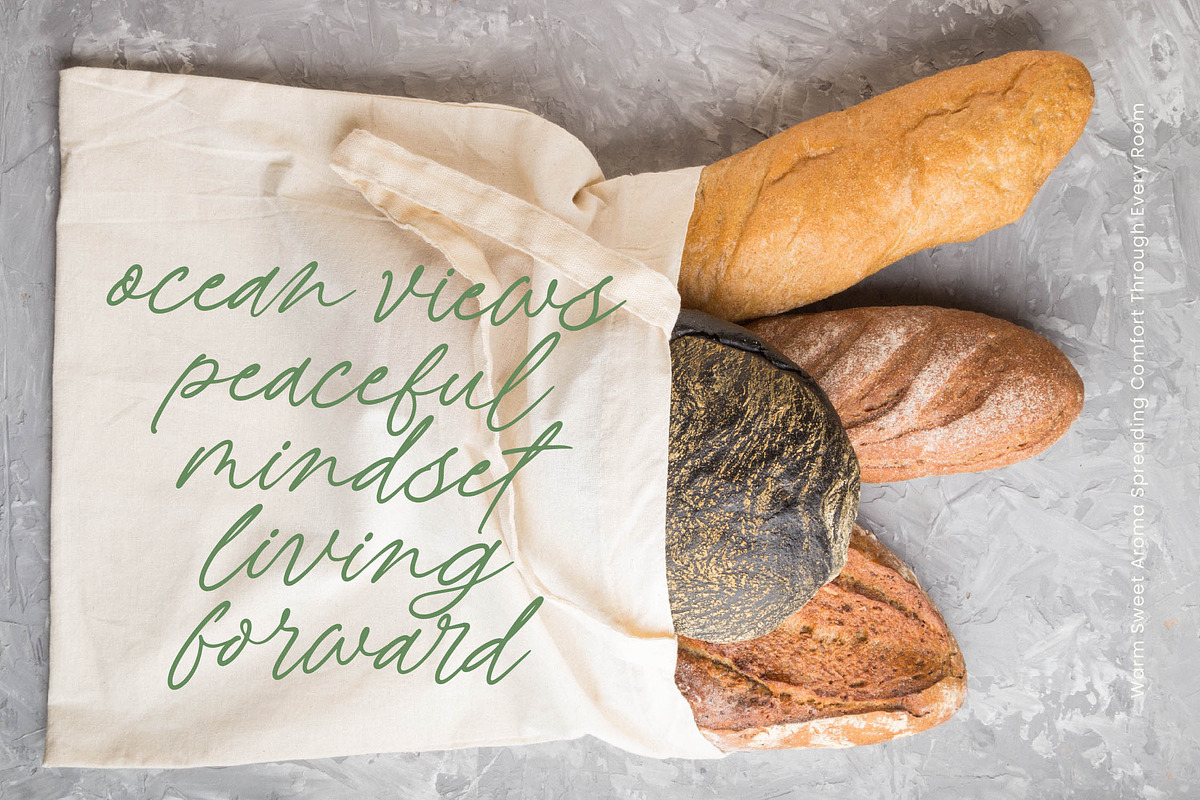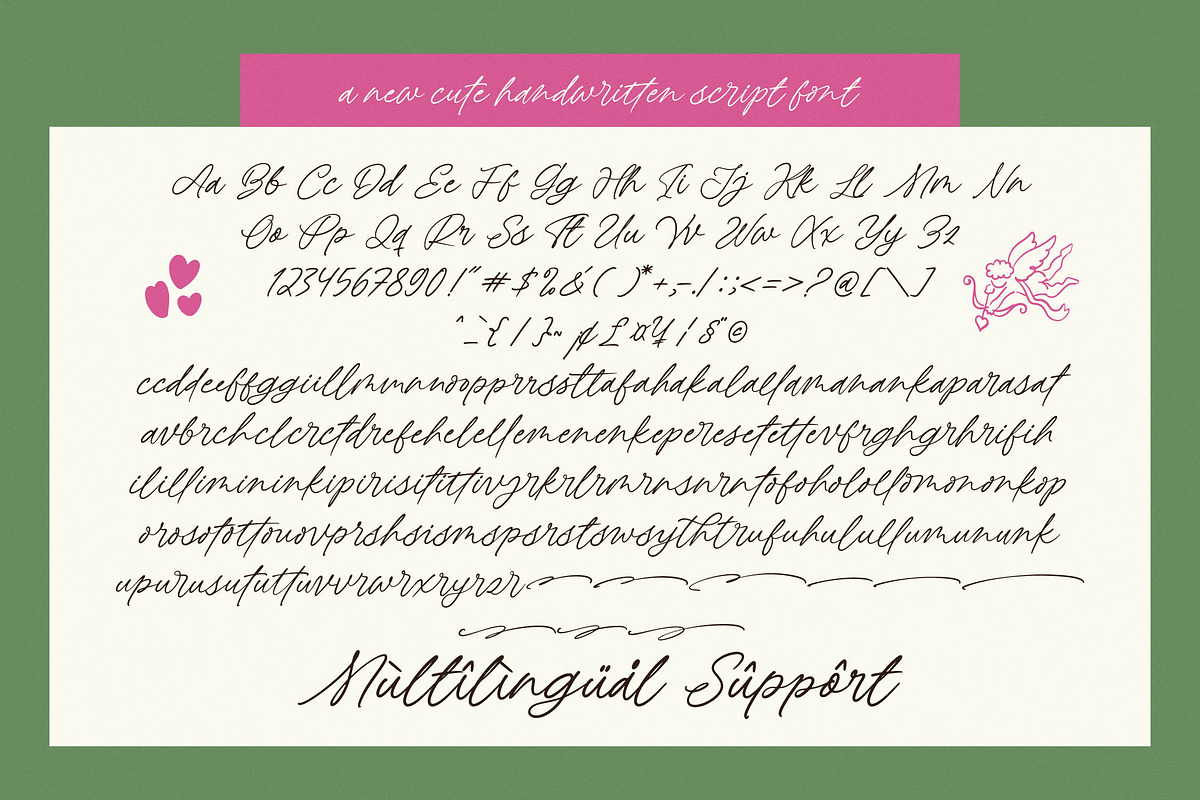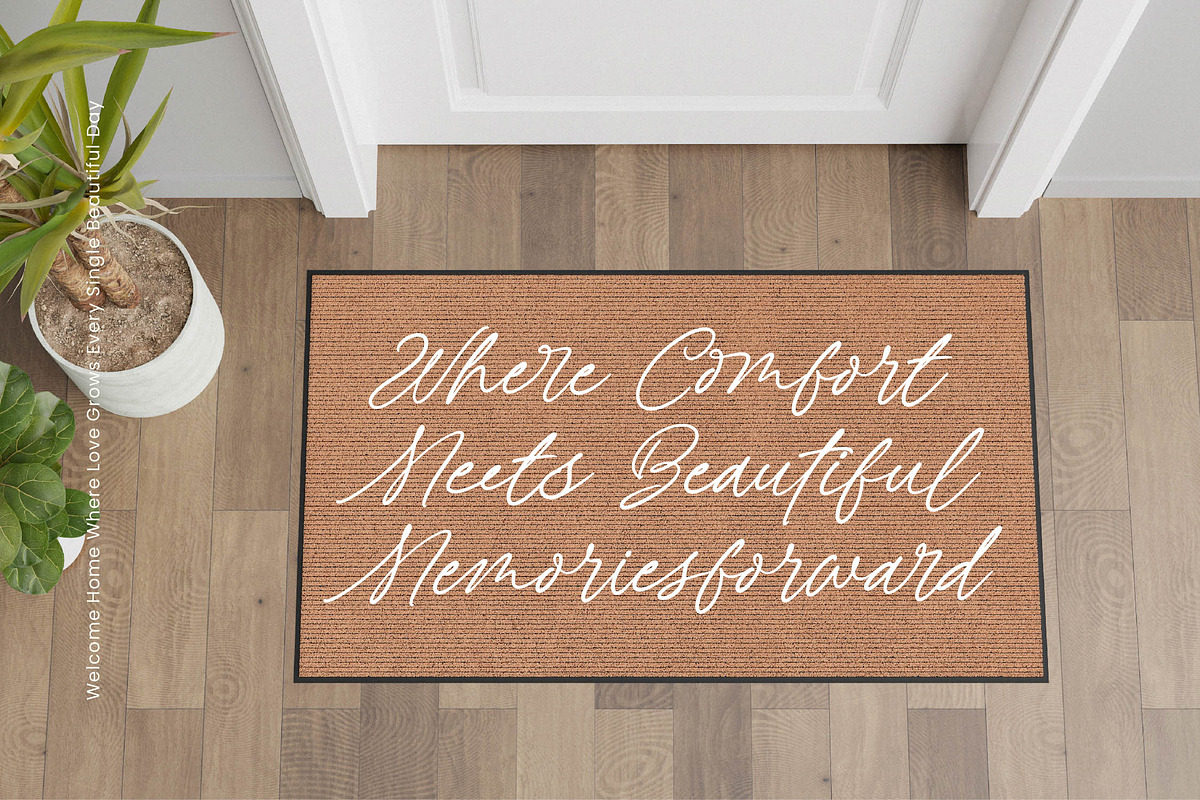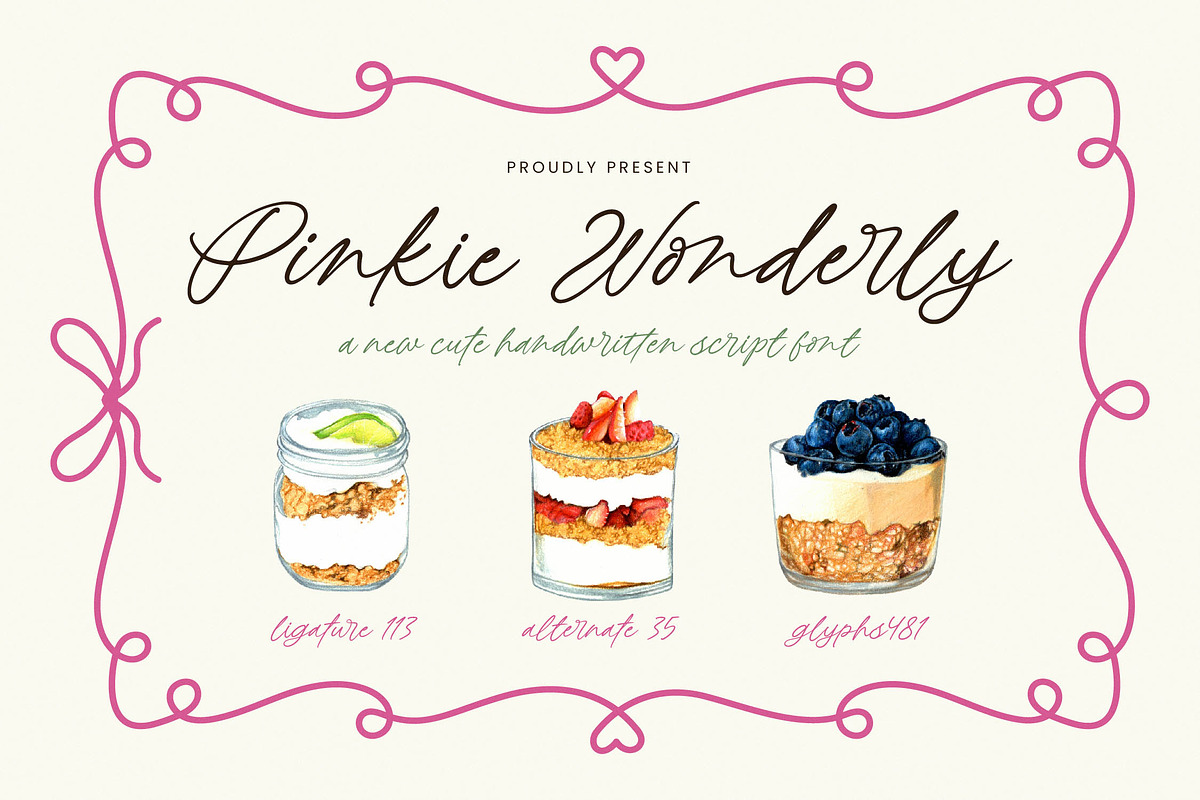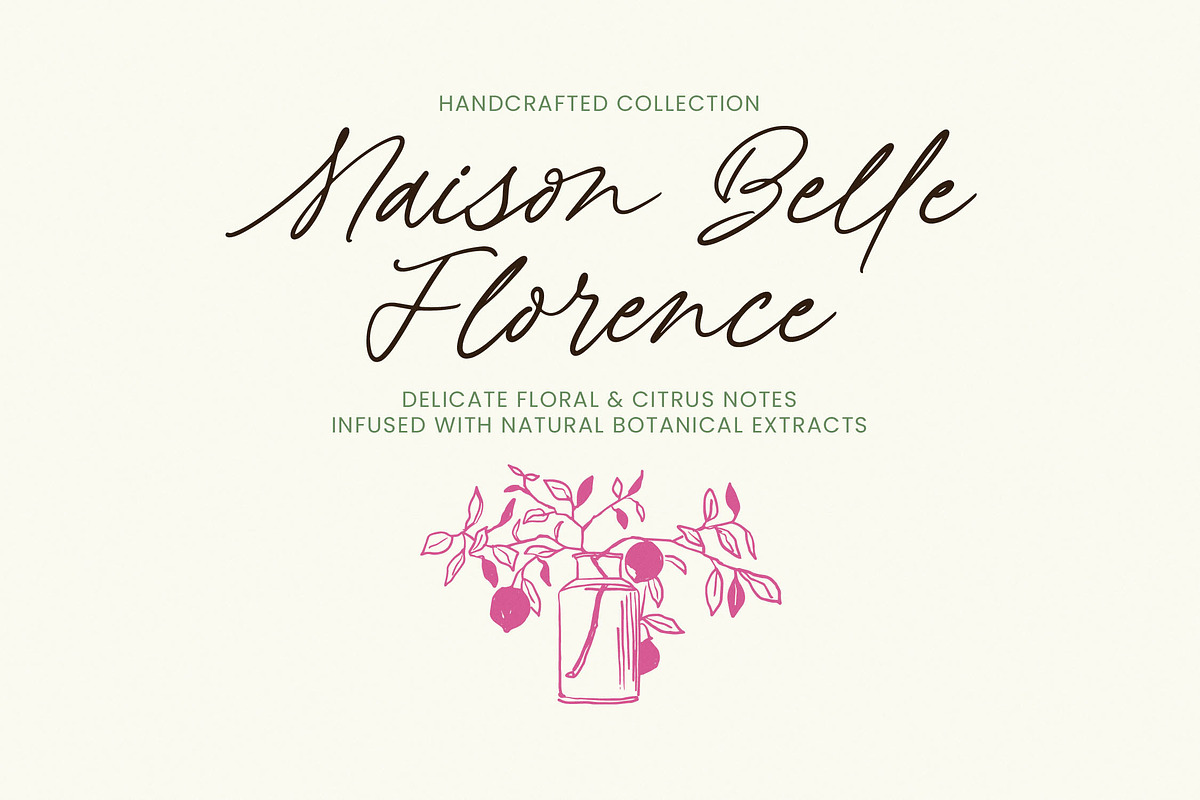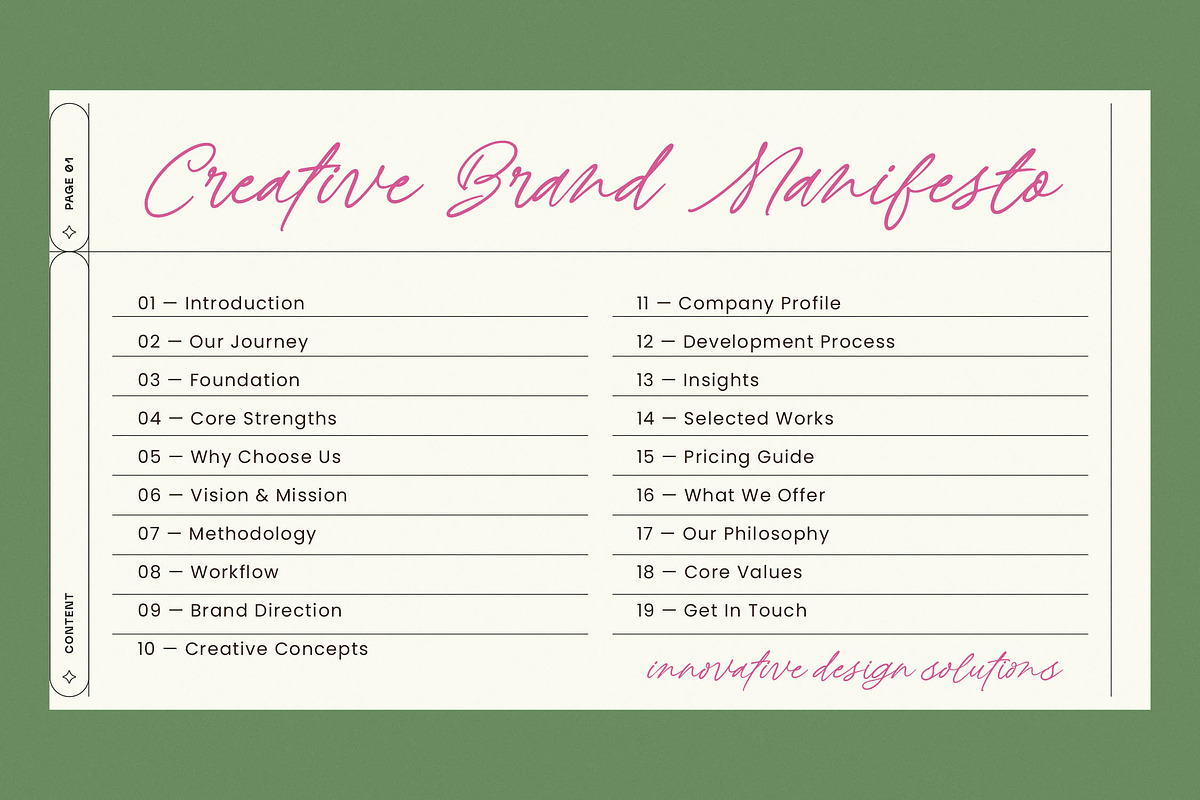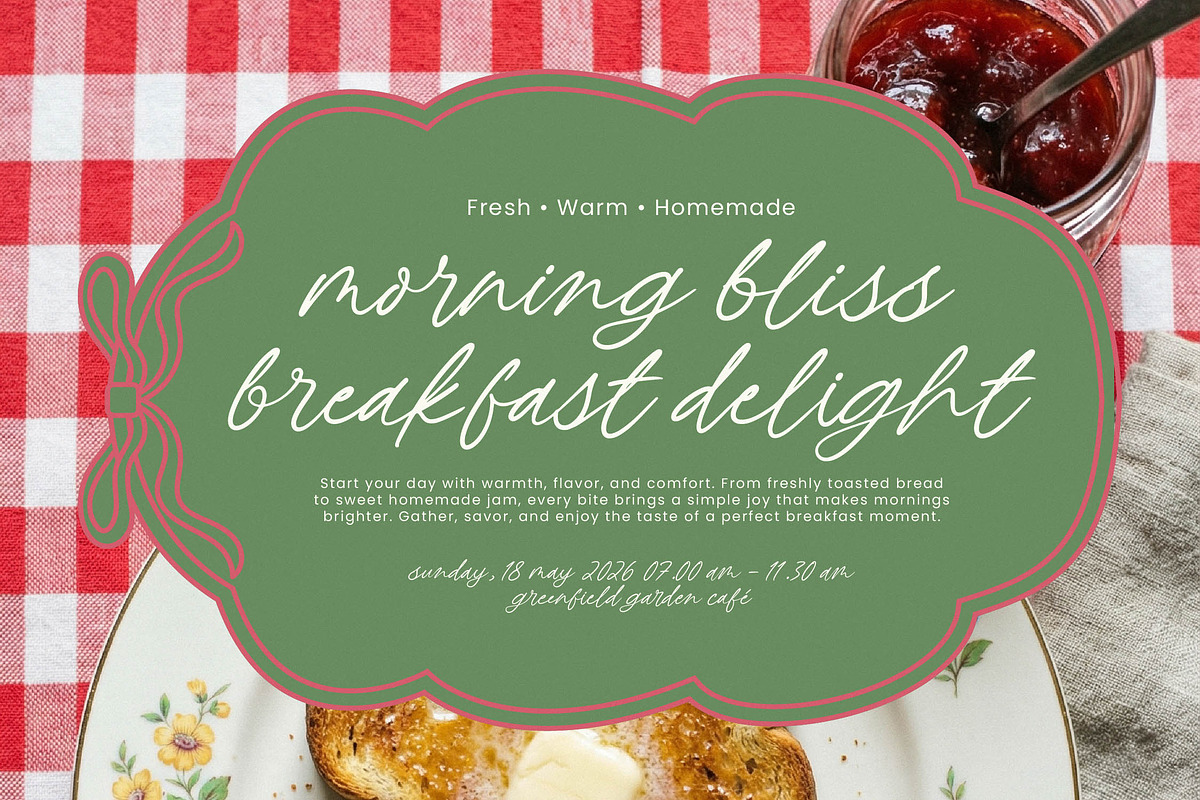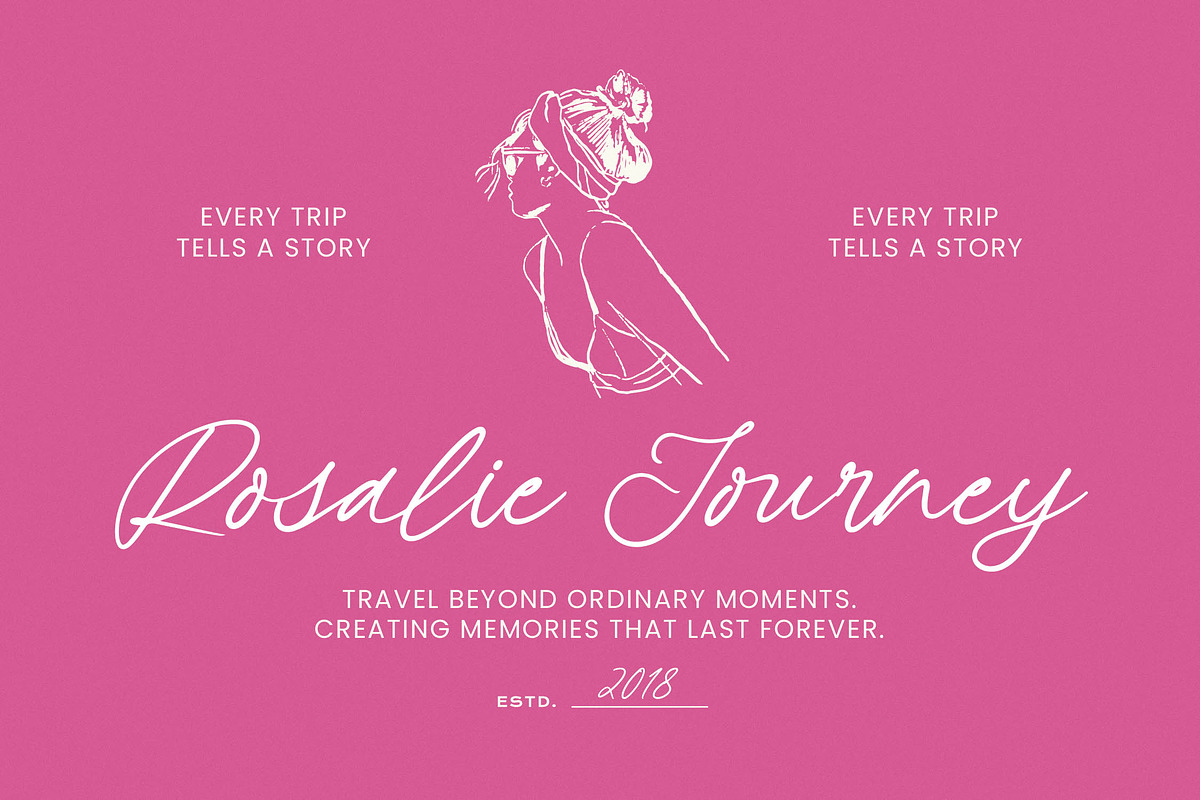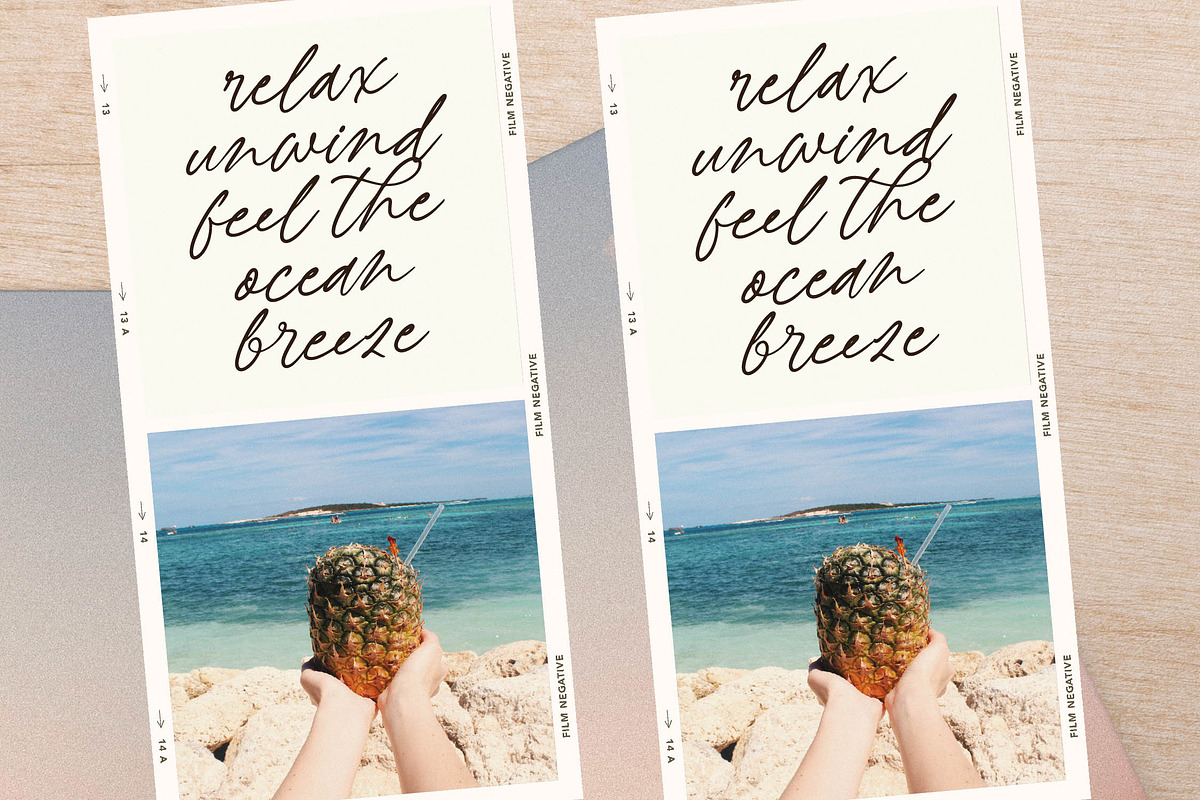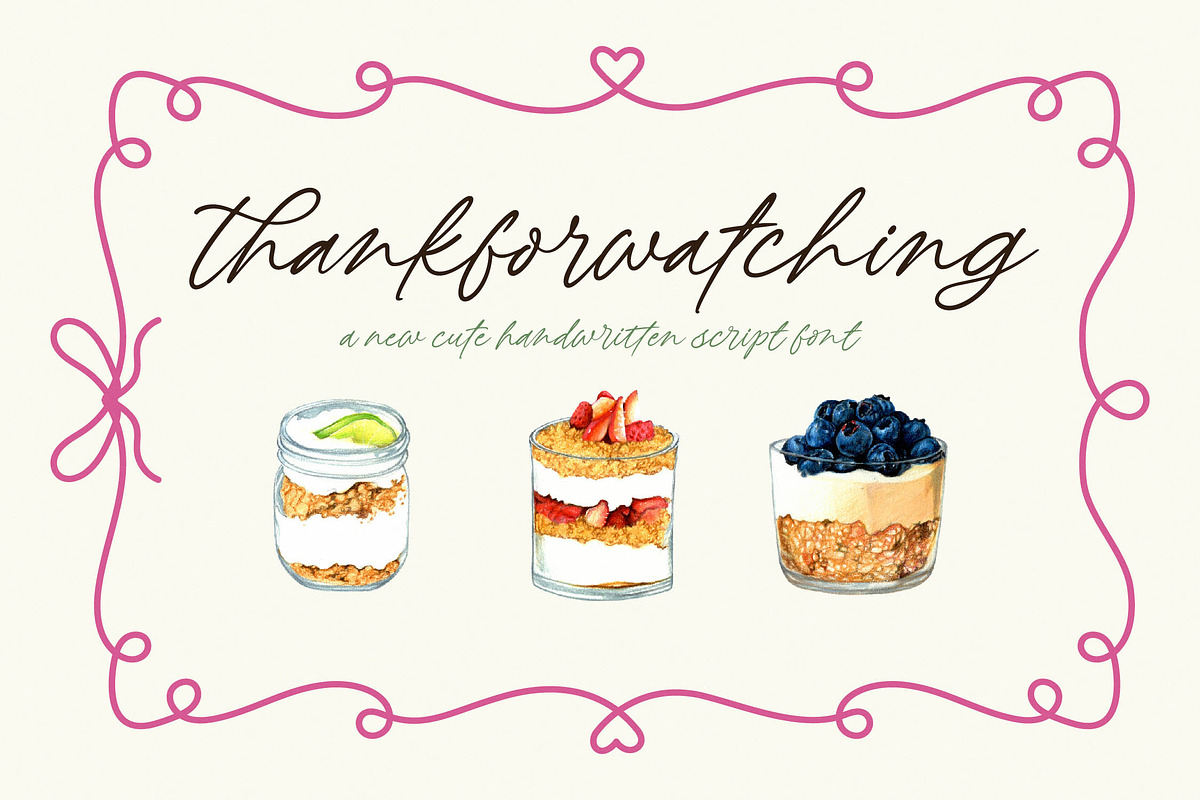
Pinkie Wonderly Handwritten Script
Pinkie Wonderly - Cute Handwritten , Pinkie Wonderly captures the essence of sweetness in every stroke, offering a delightful dance of letters that brings a touch of magic to any digital canvas. This handwritten script is designed to turn simple words into heartfelt messages with its effortless charm and bouncy rhythm.
Inspired by the whimsical aesthetic of boutique bakeries and handcrafted stationery, this typeface draws from the organic flow of a designer's personal journal. It reflects a world of soft textures, pastel hues, and the nostalgic warmth of a handwritten note tucked inside a fresh bouquet of flowers.
This typeface delivers a unique modern serif display feel through its structured yet fluid forms, ensuring a luxury typography experience for high-end projects. Its high-contrast serif elements provide a sophisticated editorial font quality that guarantees a significant branding impact for boutique businesses and creative influencers.
As the modern serif trend continues to evolve, this script fits perfectly within the shift towards more personalized and editorial display fonts. It stands out as a piece of character-driven typography that meets the current market demand for authenticity and human warmth in a digital world.
Ideally suited for logo design and comprehensive branding systems, it excels in editorial layouts where a touch of personalized elegance is required. From premium product packaging to delicate wedding invitations and high-street fashion lookbooks, this font adapts beautifully to diverse creative needs.
The package is packed with over 100 ligatures and creative alternates to give your text a truly custom-made, hand-drawn appearance. It also features decorative swashes and full multilingual support including international characters to ensure your creative message reaches a global audience.